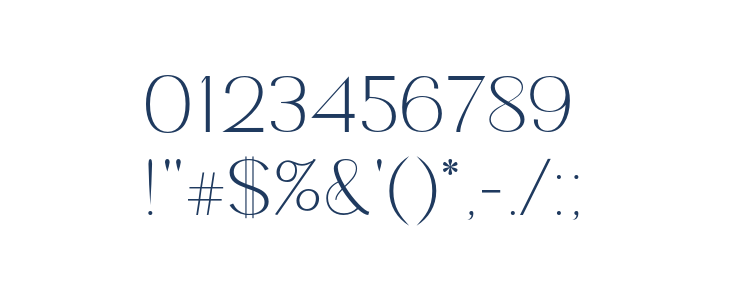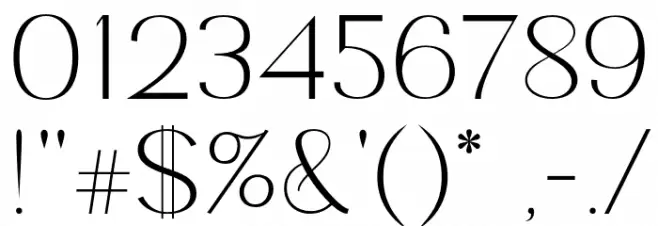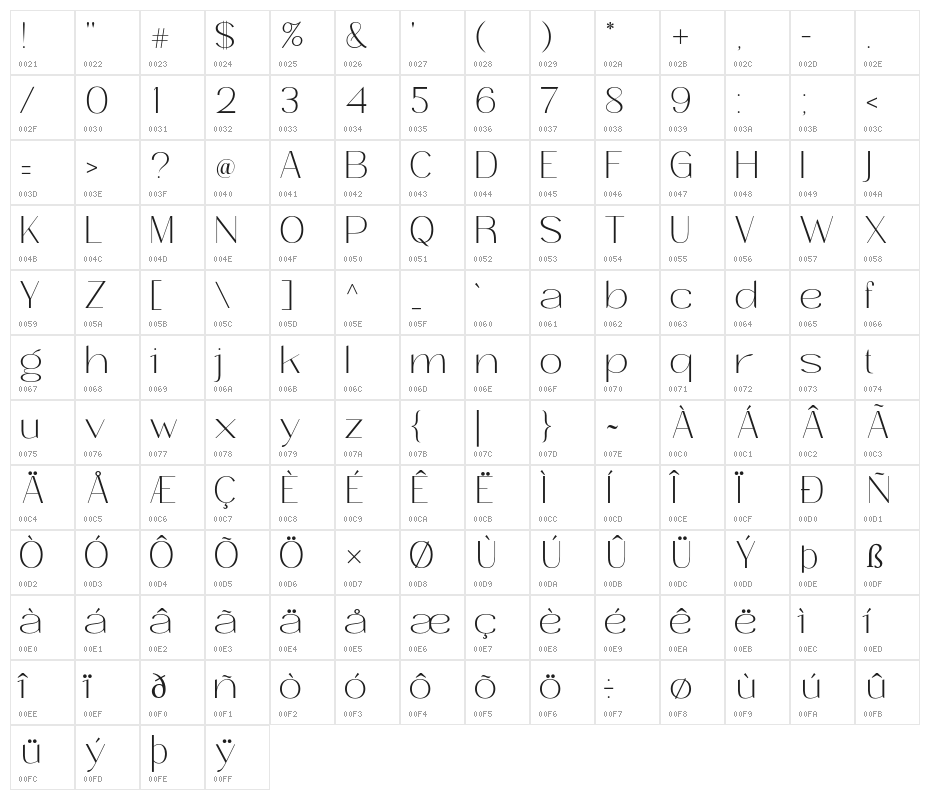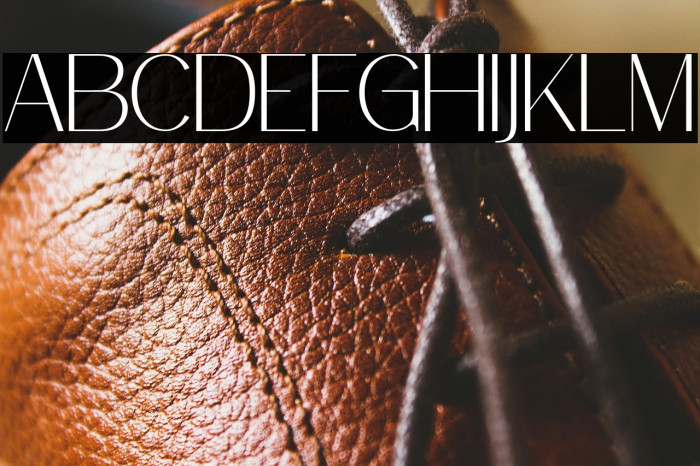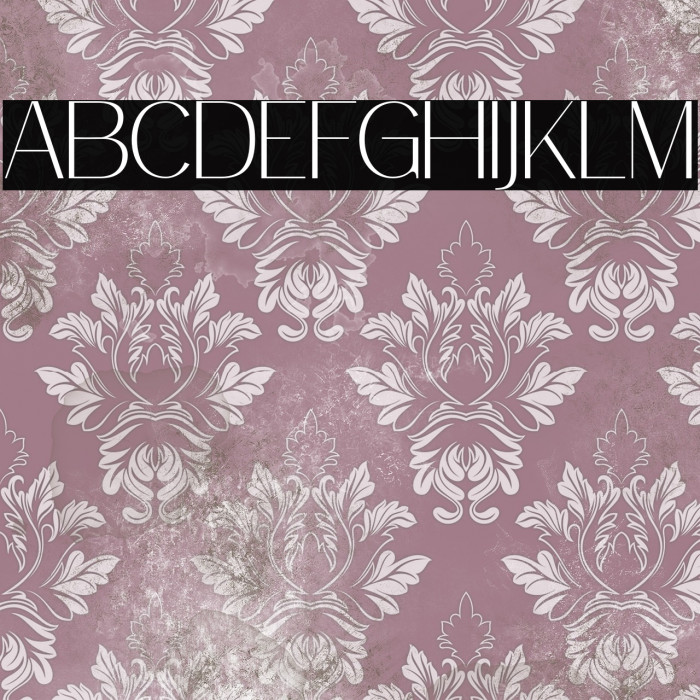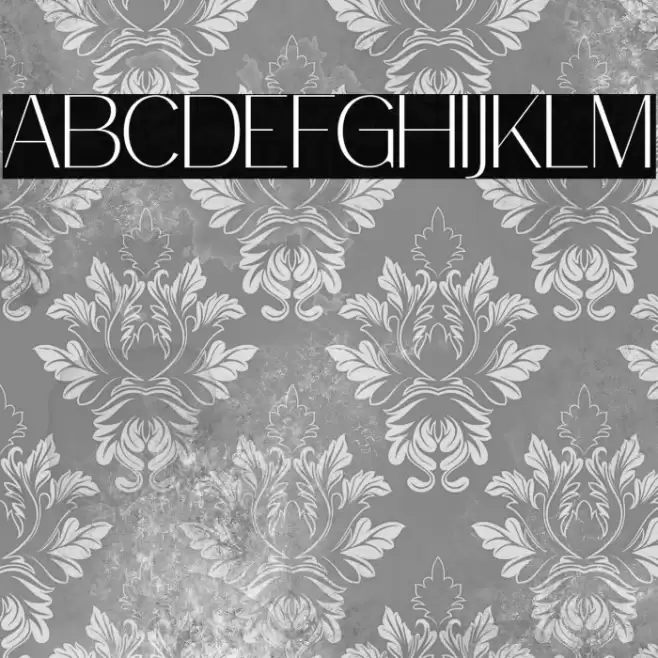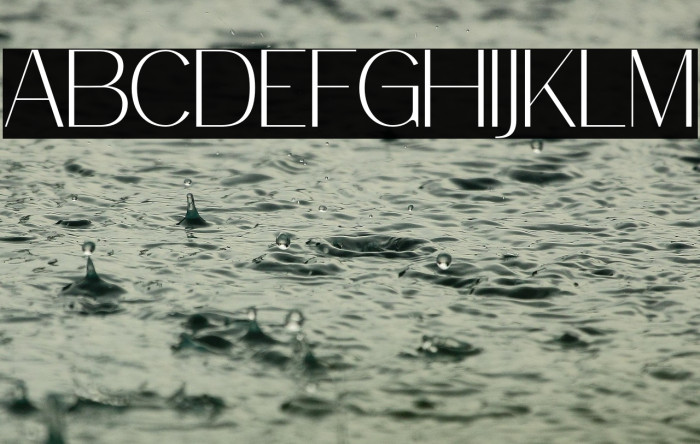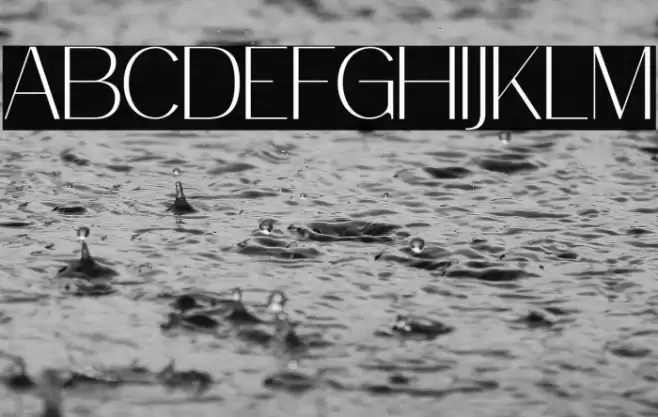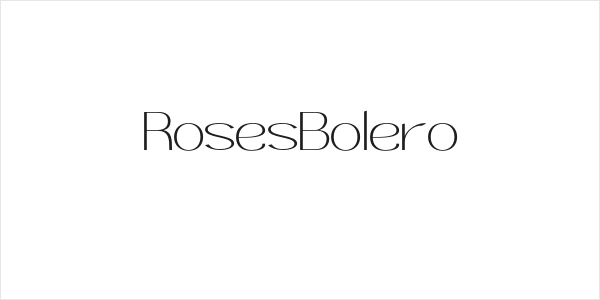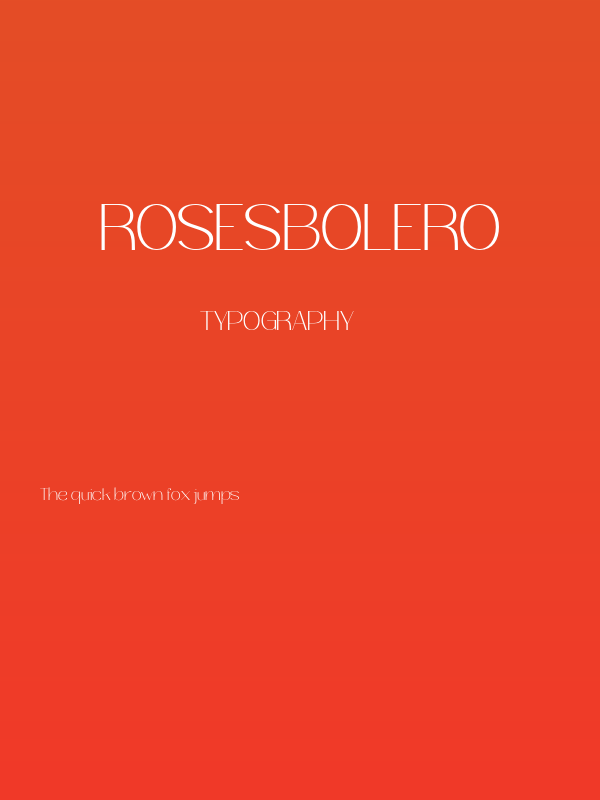
RosesBolero Font
RosesBolero Description
This font features a modern and sleek design with clean lines and a minimalist aesthetic. The uppercase letters are tall and elegant, while the lowercase letters maintain a consistent flow with subtle curves. The numerals are distinct and easy to read, complementing the overall style. Special characters are well-integrated, maintaining the font's cohesive look. The thin strokes and geometric shapes give it a contemporary feel, making it suitable for a variety of design applications.
| Use Case | Headlines, Logos, Editorial design |
| Proposed Projects | Ideal for branding, editorial design, and digital media projects that require a modern and sophisticated look. |